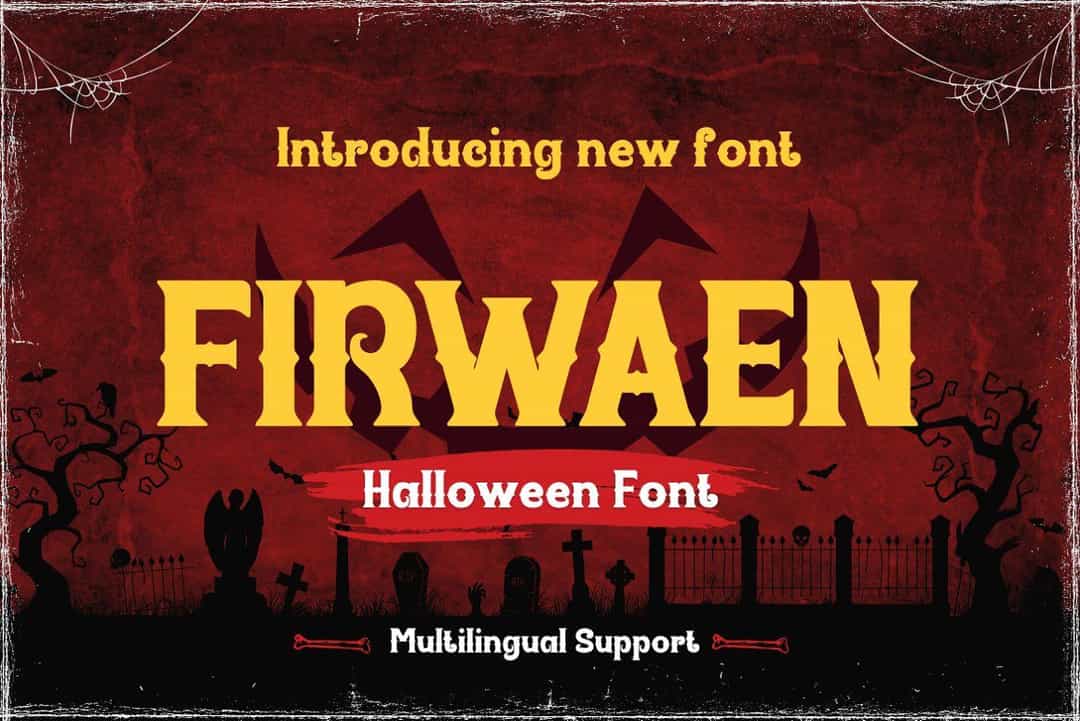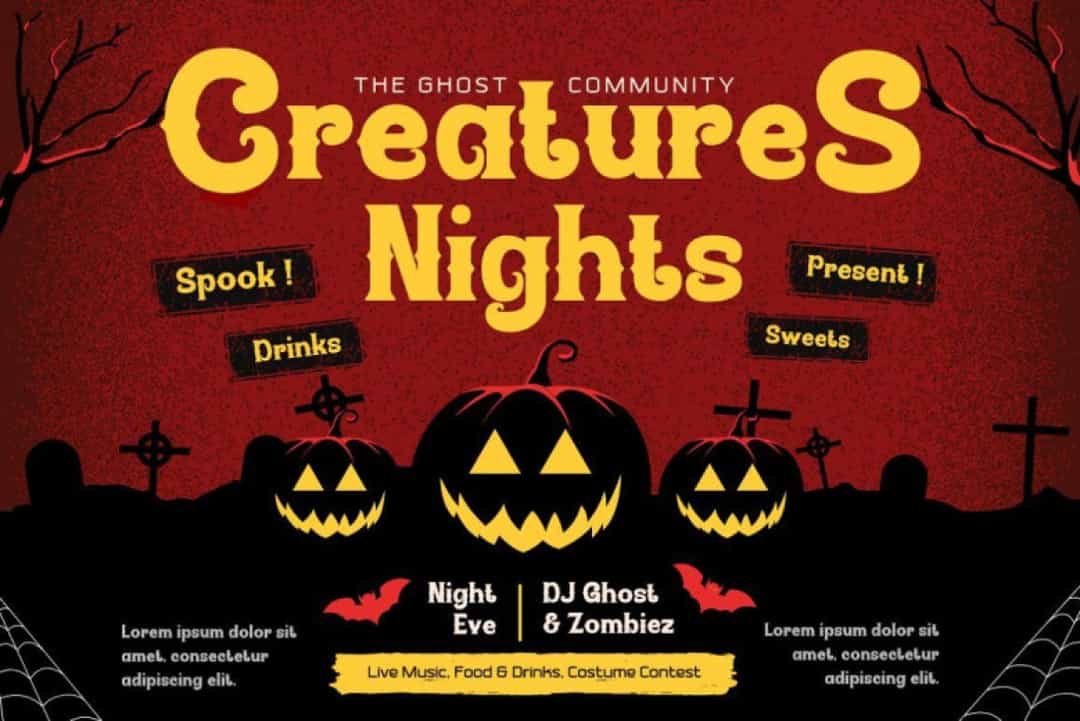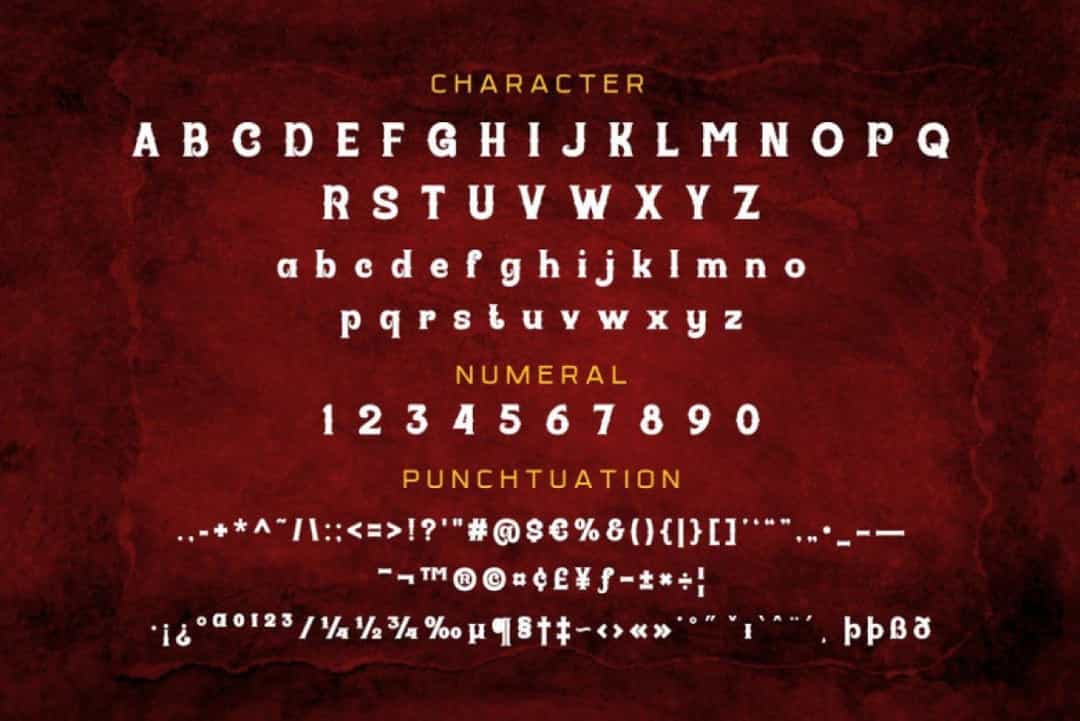
FIRWAEN font is our latest display font offering and is perfect for Halloween projects such as decorations and signs. Use this typeface in invitations, party ideas posters cards invitations or any other projects where display fonts may be needed.